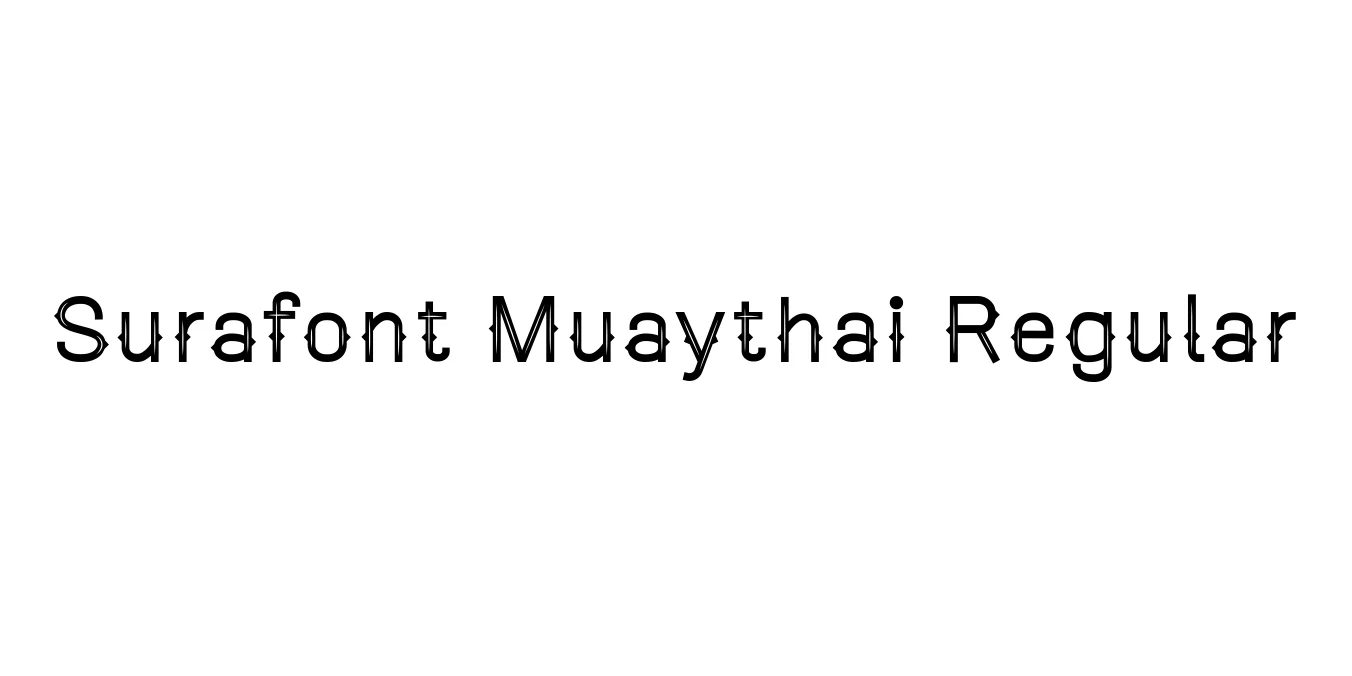
Surafont Muaythai Regular
Designed by Sura Kanchitsunthorn (Surafont)
| Category | Display / Ethnic |
| Designer | Sura Kanchitsunthorn (Surafont) |
| Similar Fonts | Thaied Up, Bangkok, Thai One |
Surafont Muaythai Regular is a powerful display typeface inspired by the rich cultural heritage and explosive energy of Thai boxing. The font captures the essence of Muay Thai through its sharp, angular strokes and aggressive letterforms that mimic the precise movements of a fighter. Developed with a deep appreciation for traditional Thai calligraphy, this font blends modern design with ethnic motifs to create a unique visual identity that stands out in high-impact environments.
Perfect for projects requiring a sense of strength and tradition, this typeface is widely used in sports branding and martial arts promotions. Its bold presence makes it ideal for headline typography, event posters, and apparel design where an authentic touch of Thai culture is needed. Whether you are designing for a fitness brand or a cultural festival, Surafont Muaythai Regular provides a distinctive look that is both authoritative and contemporary.
Surafont Muaythai Regular Best Uses
Perfect for gyms, martial arts schools, and combat sports equipment branding.
Creates high-impact headlines for fight nights and cultural festivals.
Excellent for t-shirt graphics, jerseys, and fitness wear.
Suitable for bold titles in sports magazines and fitness blogs.